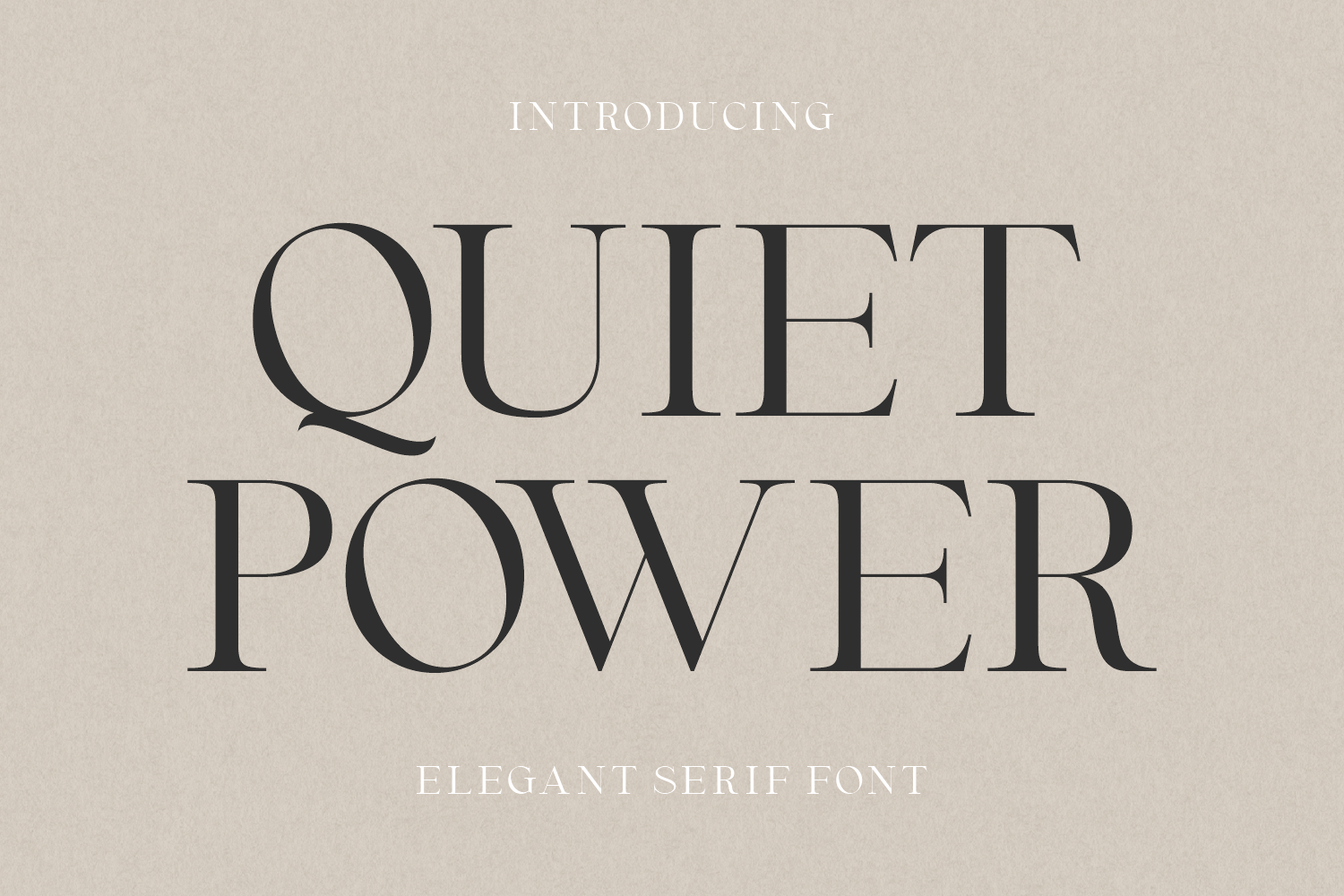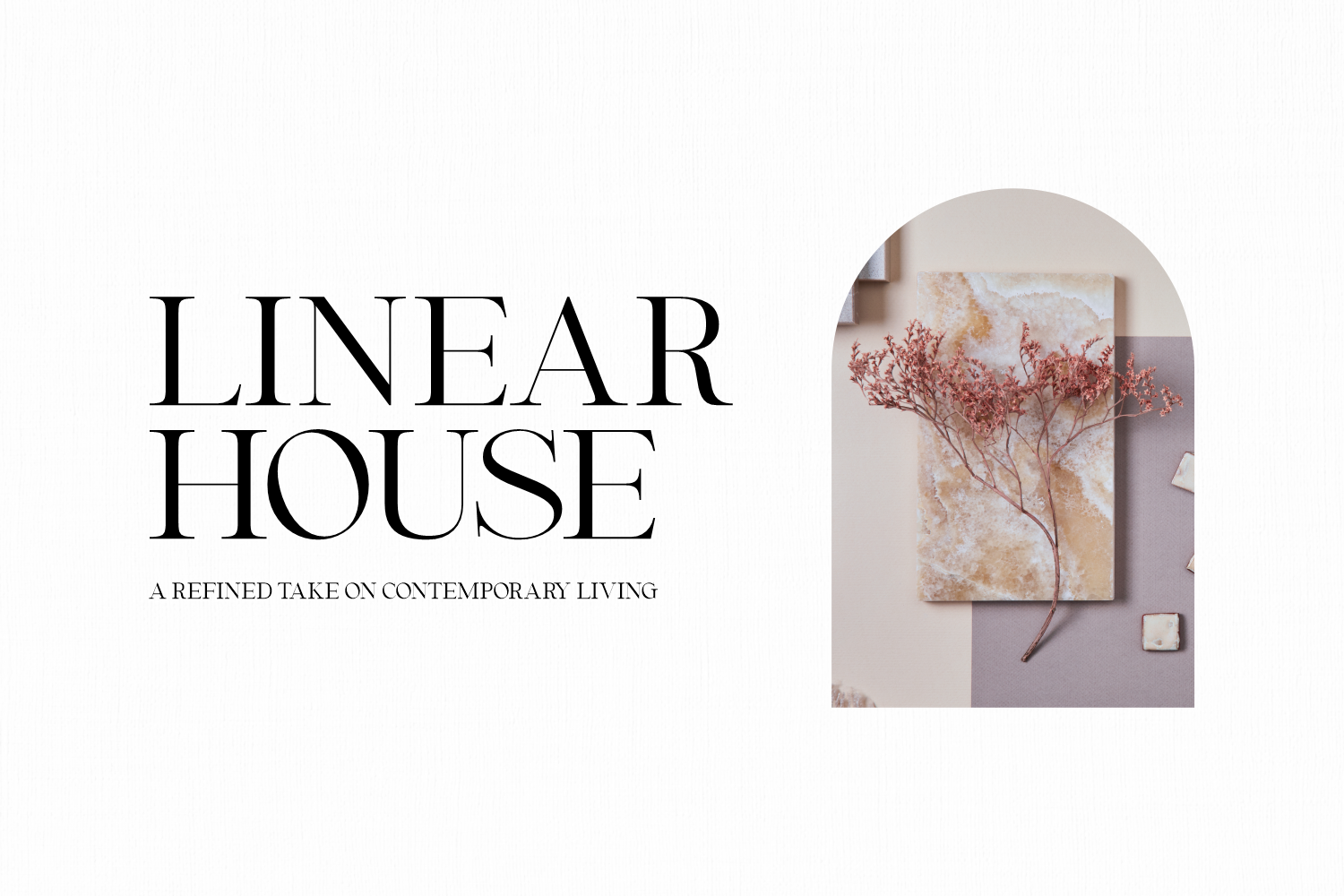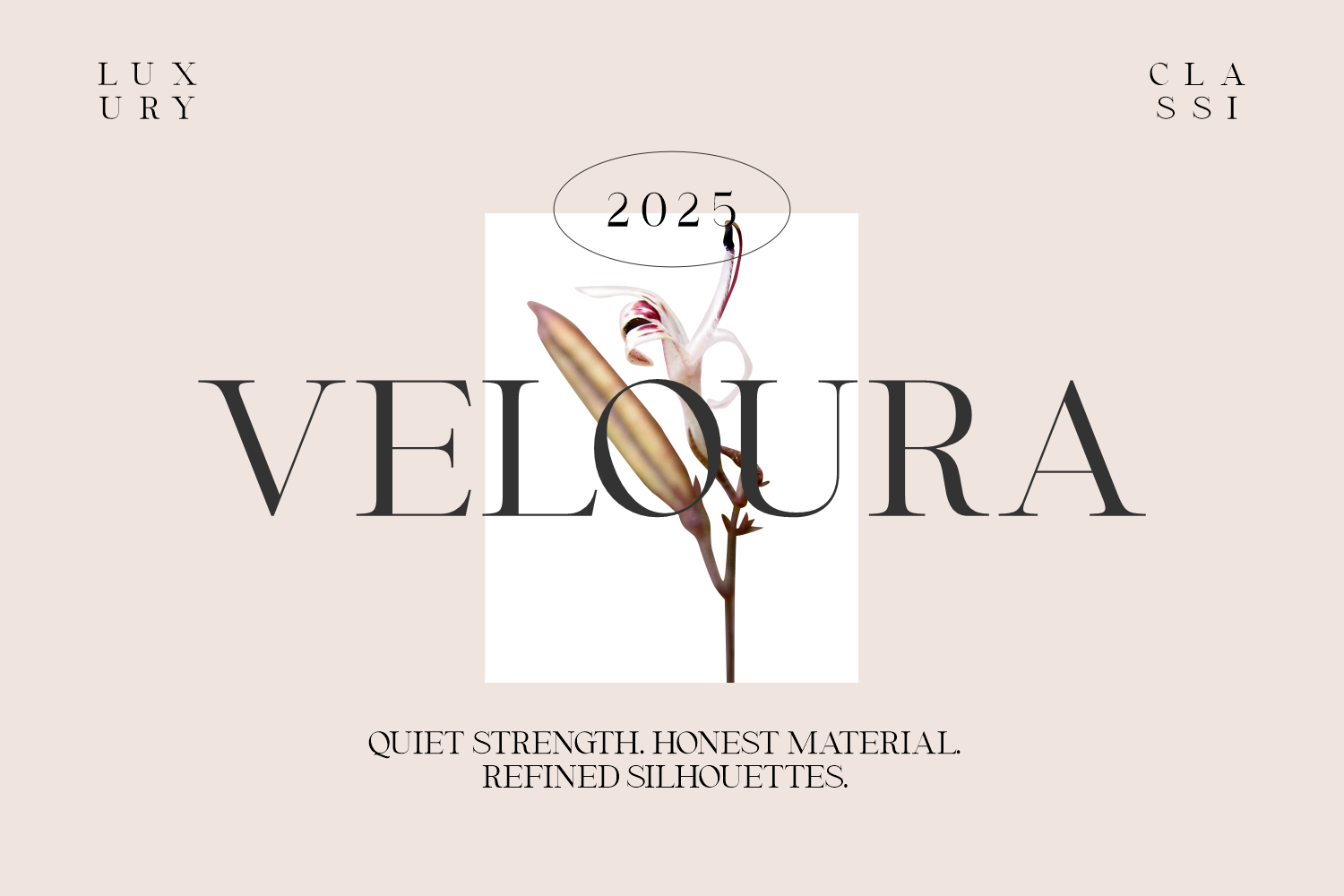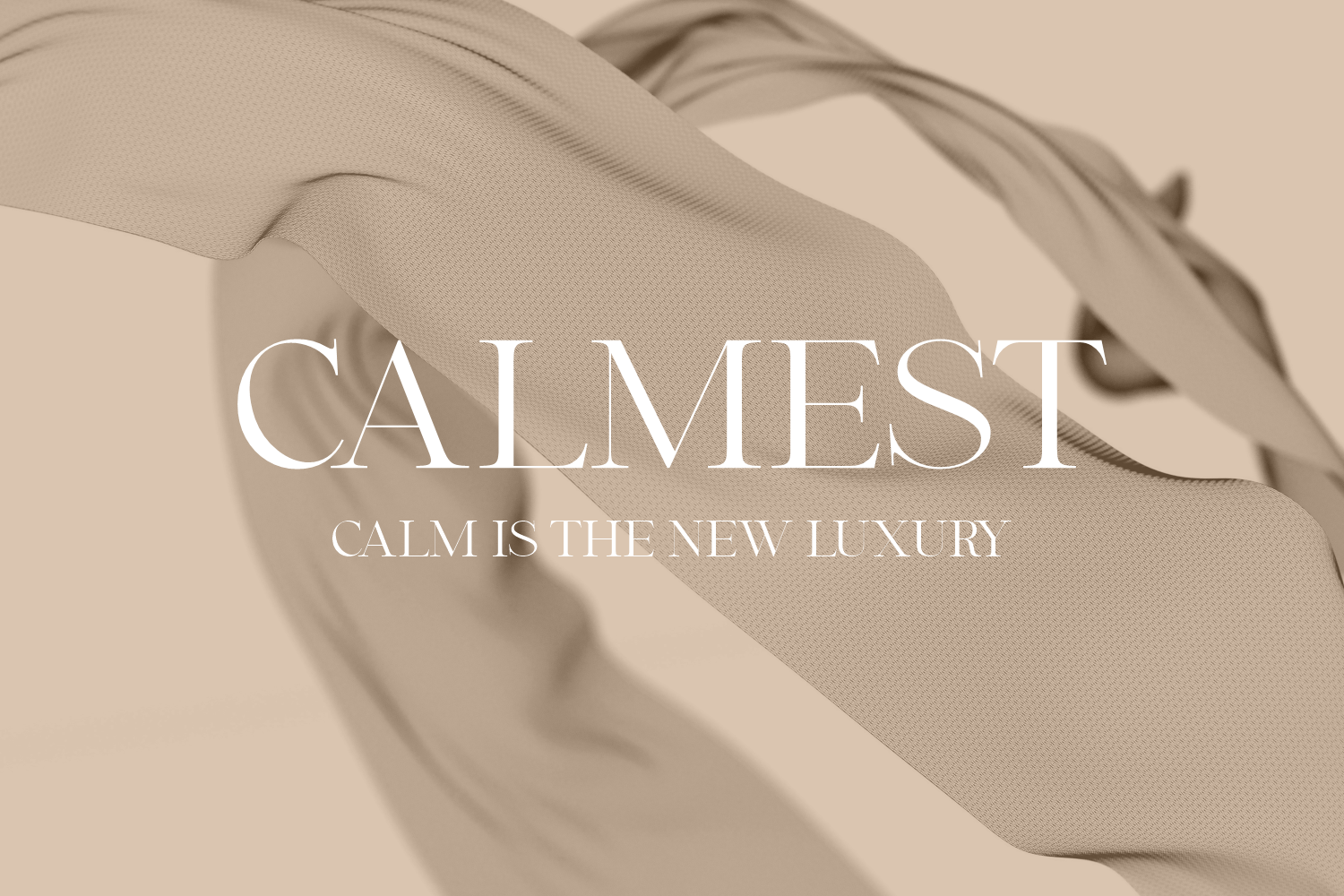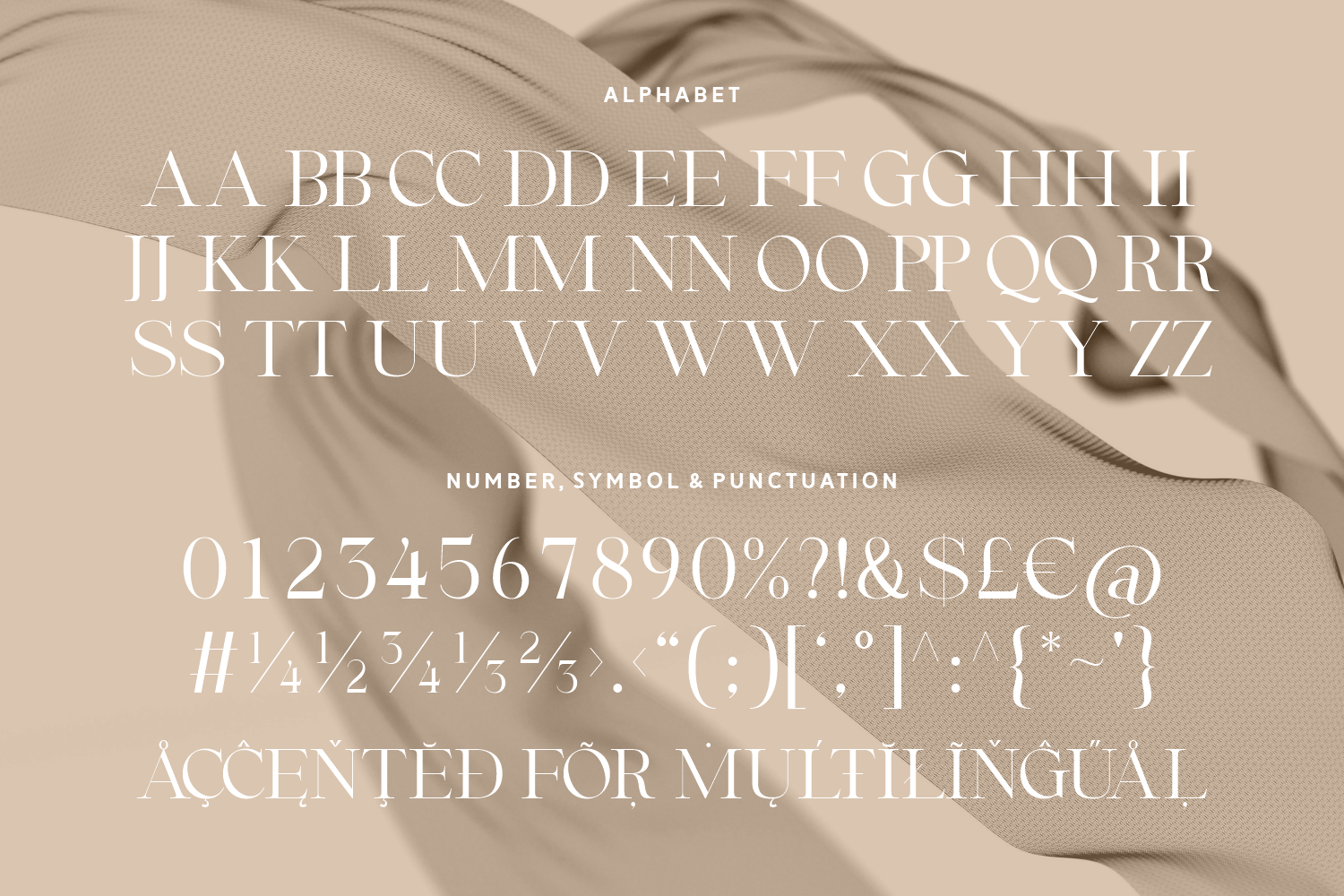
Quiet Power is a refined serif font that balances subtle elegance with commanding presence. Its timeless beauty speaks volumes with restraint—making it ideal for projects that aim to express strength through sophistication.